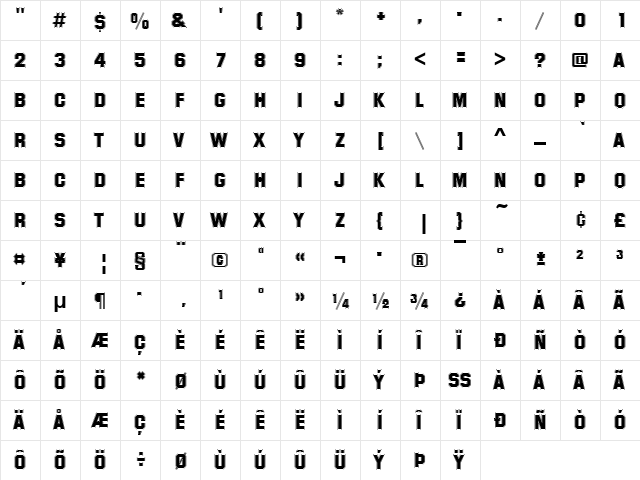
URWSulpiciusD Regular Font Preview
URWSulpiciusD Regular
Design Context for URWSulpiciusD Typeface
URWSulpiciusD is a composed and adaptable typeface that performs quietly and consistently across a wide range of design contexts.